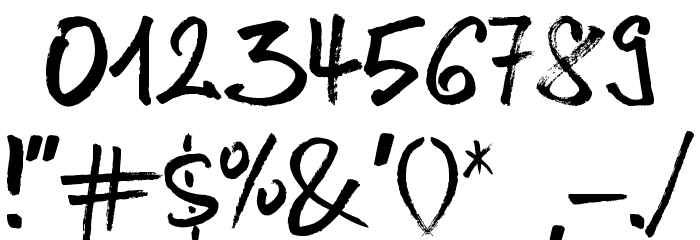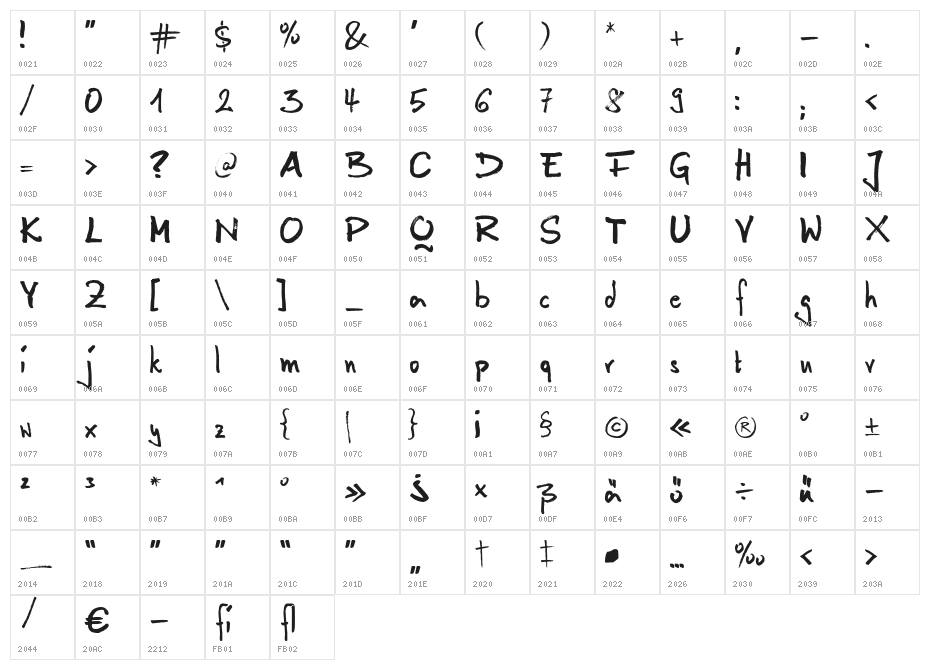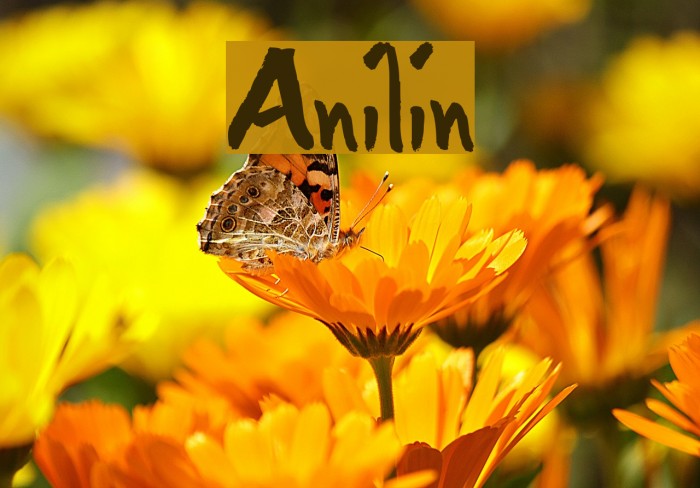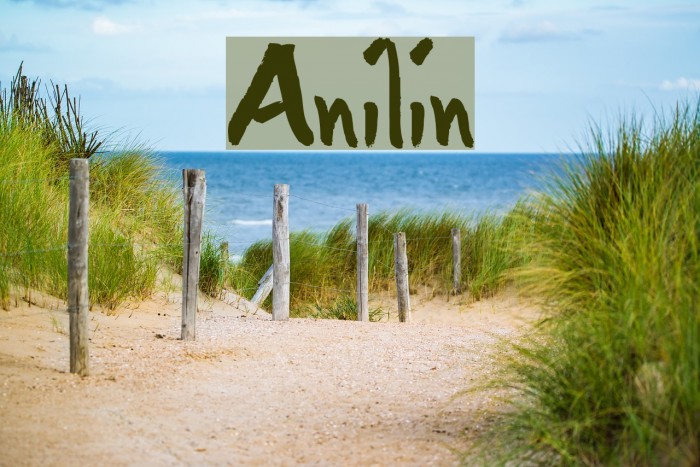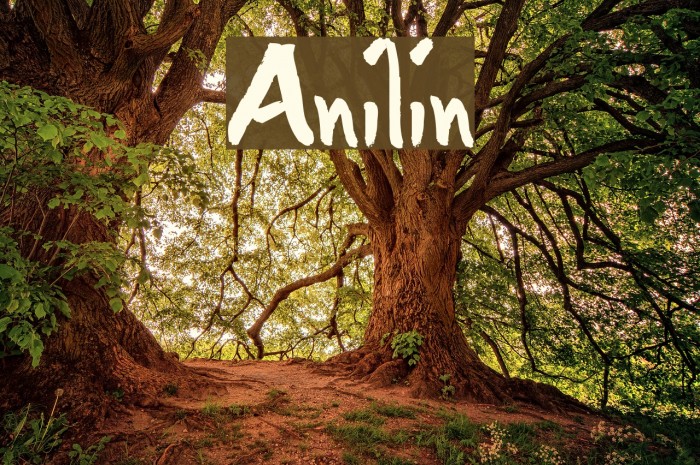
Anilin Font
Anilin Description
This font exudes a bold and expressive handwritten style, characterized by its dynamic and energetic strokes. The letters are crafted with a brush-like texture, giving them a raw and organic feel. The uppercase and lowercase letters maintain a consistent style, with slightly exaggerated curves and angles that add to the font's playful nature. The numerals and special characters follow the same aesthetic, ensuring a cohesive look across all text elements. The font's imperfect lines and varying stroke widths contribute to its informal and artistic appearance, making it ideal for projects that require a personal touch.
| Proposed Projects | Ideal for creative projects such as posters, invitations, branding, and social media graphics that require a personal and artistic touch. |